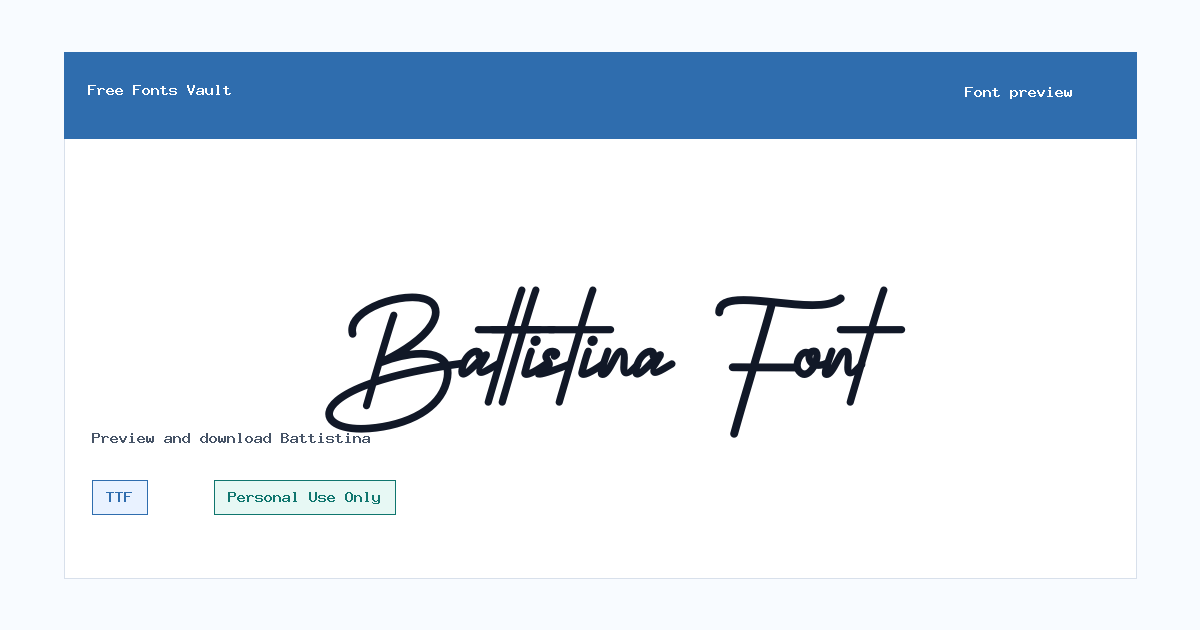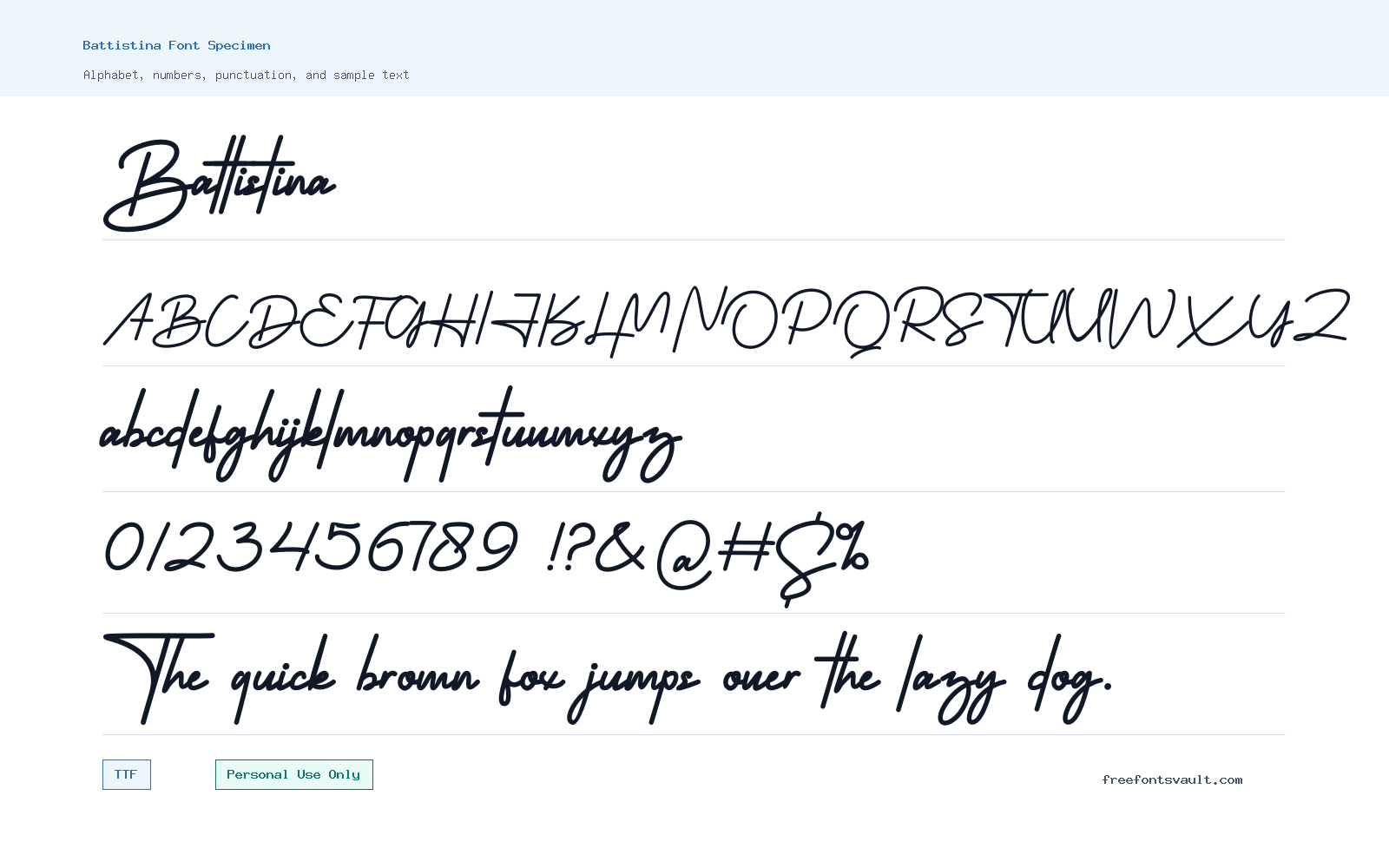
Battistina
- Designer Jejen Jaelani
Battistina is a handwritten script font with a casual, flowing look. It works best when you want lettering that feels personal, decorative, and more expressive than a standard text font.
About Battistina Font
Battistina is designed as a handwritten script typeface, so its main strength is personality. The letterforms are better suited to short, styled text than to long reading passages. Use it for names, headlines, invitations, quote graphics, social posts, label-style layouts, and other places where the font can act as a visual accent. Because it is a script design, spacing and word shape matter more than they would in a simple sans serif. Before using it in a finished piece, type your exact words in the preview and check how the letters connect, how the capitals sit beside lowercase letters, and whether the overall word shape stays clear.
For design work, Battistina can be useful in logo concepts, poster headlines, boutique-style branding mockups, wedding or event graphics, and web hero images where a warm handwritten tone is needed. Keep it large enough to show its script details. In smaller sizes, script fonts can lose clarity quickly, especially on mobile screens or busy backgrounds. If you are building a logo draft or client-facing mockup, test it in black and white first, then try it over simple color fields. Avoid placing it over detailed photos unless you add enough contrast behind the text.
Pair Battistina with restrained companion fonts. A clean sans serif works well for supporting text, menu labels, captions, dates, or product information. A simple serif can also work if the design needs a softer editorial feel. Try not to pair it with another decorative script, brush font, or ornate display face, because the layout can become crowded and hard to read. Let Battistina handle the expressive part, then use the supporting typeface for structure and clarity.
- Handwritten script style suited to short display text and decorative lettering
- Works well as a focal font for names, titles, quotes, invitations, and branding mockups
- Best used at medium to large sizes where the script details remain readable
- Pairs most safely with simple sans serif or clean serif fonts
- Personal invitations and greeting card designs
- Logo drafts and boutique branding mockups
- Poster titles, quote graphics, and social media images
- Web hero mockups where a handwritten accent is needed
- Labels, packaging concepts, and decorative name treatments
What kind of font is Battistina?
Battistina is a handwritten script font. It is best for decorative display text such as names, titles, invitations, quote graphics, and branding mockups.
Is Battistina good for body text?
It is not ideal for long paragraphs. Script fonts are usually clearer when used for short phrases, headlines, and display lettering.
What should I pair with Battistina?
Pair it with a clean sans serif or a simple serif. Avoid using it beside another decorative script, because that can make the design harder to read.